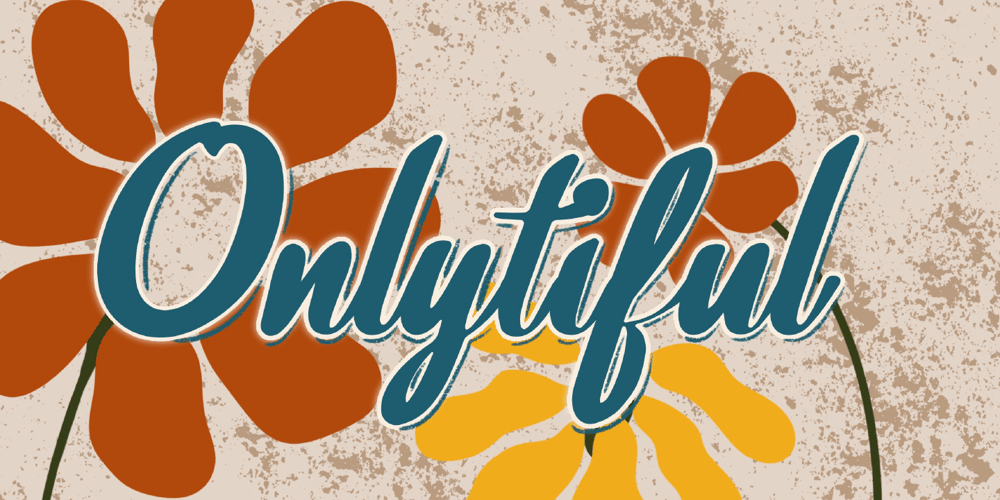
Onlytiful
Onlytiful font
Onlytiful Font Family was designed by Khair Unnas and published by Khaiuns. Onlytiful contains 2 styles and family package options. Introducing Onlytiful, a versatile font collection that combines the elegance of cursive script with the clarity of modern design. Inspired by bold and rounded styles, Onlytiful offers two distinct yet complementary design variations.The cursive script style adds a personal and distinctive touch, reminiscent of expressive handwritten notes. With its soft and flowing characteristics, Onlytiful brings warmth and charm to any design project.On the other hand, the bold and clear design brings a sense of clarity and strength. With thicker lines and sharper shapes, this font is perfect for conveying direct and impactful messages while maintaining a stylish and appealing aesthetic.Both design variations in Onlytiful complement each other, providing flexibility and creativity in usage. Suitable for a wide range of design projects, from logos and posters to branding and promotional materials.Explore the beauty and uniqueness of Onlytiful, and add a special touch to every design project!